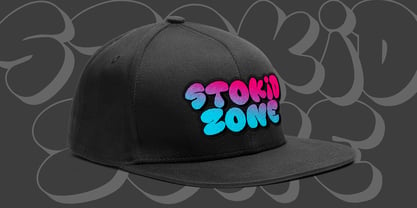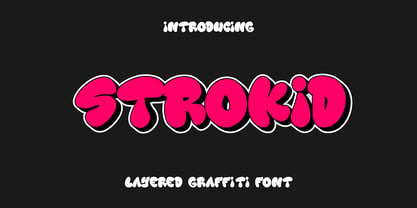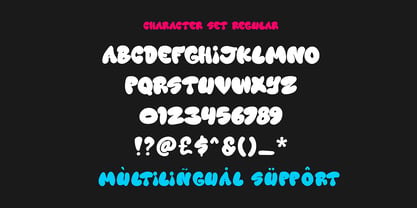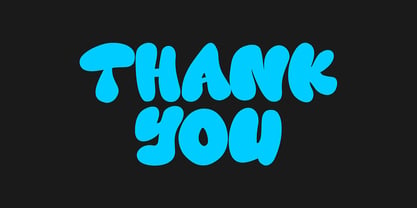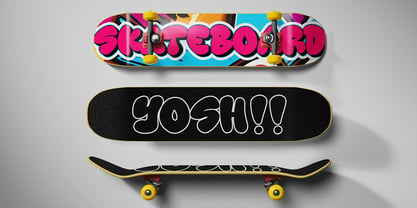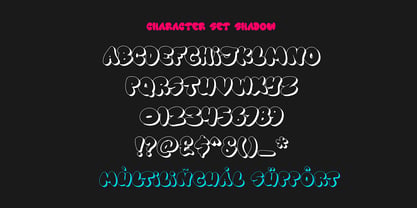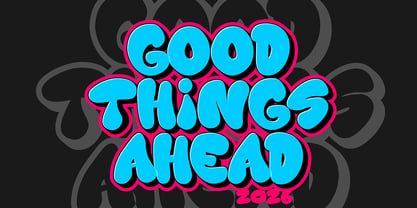
Strokid Graffiti
by Sipanji21
The Strokid Graffiti Font Family was designed by Sipanji and published by Sipanji21. Strokid Graffiti contains 2 styles and family package options. More about this family
Strokid is a bold layered graffiti display typeface inspired by authentic street art, urban tagging culture, and modern bubble lettering aesthetics. Designed to capture the raw energy of graffiti walls and combine it with a clean, professional finish, Strokid delivers thick rounded letterforms with powerful outlines and strong visual presence. Built as a layered system, Strokid allows designers to create vibrant multi-color typography compositions with ease. Each style layer can be stacked to produce bold fill-and-outline combinations, dynamic color contrasts, and eye-catching graffiti effects. This flexibility makes it highly adaptable for both subtle branding applications and loud street-inspired visuals. The core structure of Strokid features oversized bubble shapes with smooth curves and balanced spacing. While inspired by freestyle graffiti lettering, the characters are carefully refined to maintain readability and consistency. This balance between urban spontaneity and professional structure ensures that Strokid works effectively across commercial and creative projects. The layered concept makes it especially suitable for designers who want to experiment with color variations. You can apply contrasting fills and outlines, create neon-style street typography, or build layered compositions for apparel graphics and poster artwork. The result is typography that feels alive, energetic, and dimensional. Strokid is ideal for: - Streetwear branding - Hip-hop and rap album artwork - Urban posters and flyers - Gaming titles and streaming graphics - YouTube thumbnails - Merchandise and apparel printing - Sticker packs and skateboard graphics - Youth lifestyle branding - Event promotions - Social media visuals Its bold bubble graffiti personality makes it perfect for high-impact headlines and short statement phrases. The strong rounded forms ensure that even at a distance, the typography remains legible and visually powerful. The font includes uppercase letters, numbers, and punctuation, giving designers flexibility for different layout needs. The consistent stroke thickness and outline structure allow seamless layering without technical complexity. Strokid embraces modern graffiti aesthetics while keeping a polished vector execution. It captures the spirit of urban culture without appearing chaotic or messy. The clean construction ensures smooth printing results and sharp digital rendering. Whether used in digital media, large-format posters, apparel design, or branding campaigns, Strokid maintains its bold street attitude. It works particularly well with vibrant colors, dark backgrounds, neon tones, spray textures, and urban photography. This is not a minimal typeface. Strokid is designed to stand out, dominate space, and make statements. It represents confidence, youth energy, and creative freedom. Designers who want typography with personality and urban authenticity will find Strokid to be a versatile and reliable tool. If you are looking for a layered graffiti display typeface that combines bubble lettering charm with modern professional execution, Strokid delivers impact, flexibility, and unmistakable street presence.